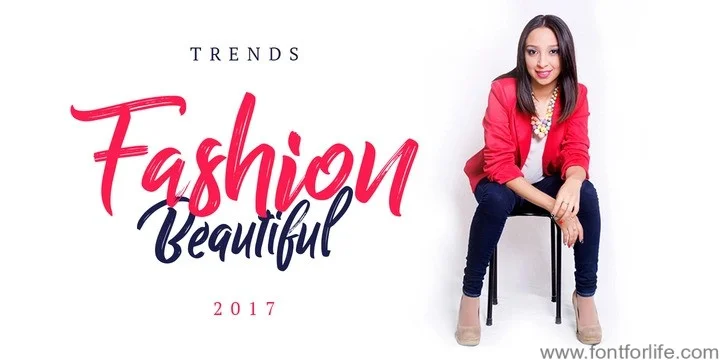
Billy Ohio Typeface Free Download
Billy Ohio Typeface is perfect for americana brand identity, heartland restaurant signage, midwest farm marketing, traditional barbershop logos, vintage diner materials, small-town festival posters, classic automotive branding, rural community events, hometown business communications, and authentic american heritage brands.
Billy Ohio Typeface is exciting because it authentically captures the honest spirit and down-home charm of America's heartland, creating a typeface that embodies the values of hard work, community pride, and the genuine character that defines small-town American life. This font brings heartland sophistication and americana authenticity to any project, making it ideal for brands that want to convey trustworthiness, community values, and the enduring appeal of traditional American craftsmanship and neighborhood spirit. Its honest character and heartland appeal create an atmosphere of genuine americana that resonates with audiences who appreciate authentic community values and traditional quality.
Billy Ohio Typeface family includes light, regular, medium, bold, and condensed weights, each available in roman and italic styles with americana symbols and heartland ornaments, providing designers with comprehensive tools for creating authentic american typography and community-focused brand experiences.
This genuine americana typeface combines heartland design traditions with contemporary functionality, making Billy Ohio Typeface Free Download a perfect choice for projects celebrating american heritage and community values. The font's honestly crafted letterforms feature heartland proportions and americana styling that reflect the authentic character and community spirit of midwest towns and traditional american businesses.
Whether you're designing hometown business branding, american heritage materials, or community festival communications, Billy Ohio Typeface delivers unmatched americana authenticity and heartland appeal. The font excels in both intimate community applications and larger americana environments where traditional values and honest character create meaningful community connections.
Community business professionals choose Billy Ohio Typeface for its ability to instantly communicate heartland values and americana authenticity while creating emotional connections with audiences seeking genuine community experiences and traditional american quality. The font's honest character makes it particularly effective for local businesses, community organizations, and americana heritage brands.
Each character reflects the steady reliability of heartland communities, featuring honest construction and americana proportions that create typography as dependable and genuine as small-town main streets, community gatherings, and the enduring strength of american heartland values.